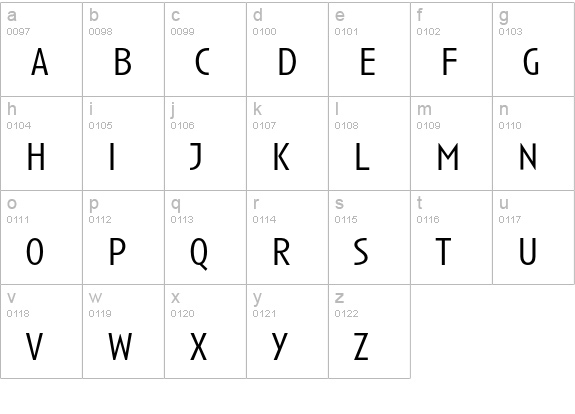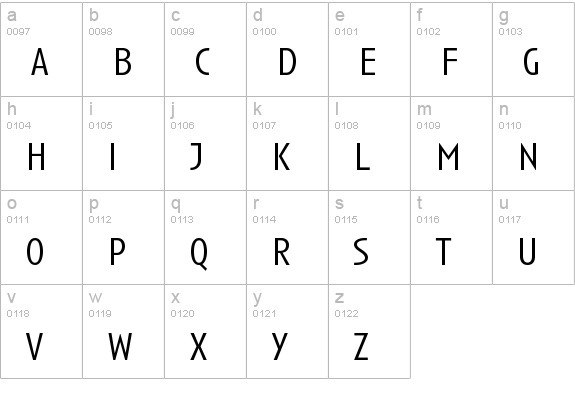
Anisette-Light is a refined, elegant variant in the Anisette typeface family \xE2\x80\x94 well suited to elegant body text, refined sub-headings, and luxury branding.
Anisette-Light is a sleek and elegant font that exudes sophistication and modernity. Its delicate curves and clean lines make it a perfect choice for projects that require a touch of refinement and style. The light weight of the font gives it a subtle and airy appearance, making it ideal for use in designs that need a more delicate touch. What sets Anisette-Light apart is that it is not only stylish and versatile but also completely free to download. That's right, you can access this beautiful font at no cost on FontsMarket.com. Whether you're working on branding, advertising, or any other creative project, Anisette-Light is sure to elevate your designs and make them stand out. Don't miss the opportunity to add this gorgeous font to your collection today!